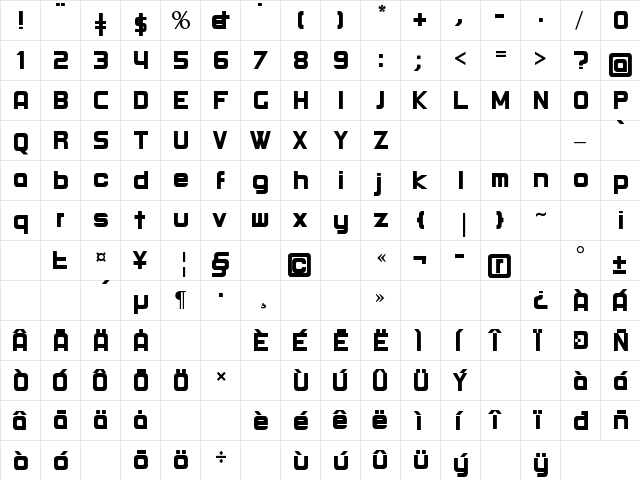
Round Bold
Design Context for Round Typeface
Round softens its letterforms with rounded terminals, giving it an approachable, friendly quality that works well in consumer-facing and digital contexts. The heavy weight commands attention and anchors typographic hierarchies.
A natural fit for tech startups, health and wellness brands, children's products, and friendly consumer apps.
Font Pairing: Pairs well with a rounded or humanist sans for body copy, maintaining the friendly tone without relying on Round to carry extended reading.
Pro Tip: Pair Round with a geometric sans for a balanced system — the rounded softness works as a warm counterpoint to harder-edged companions.